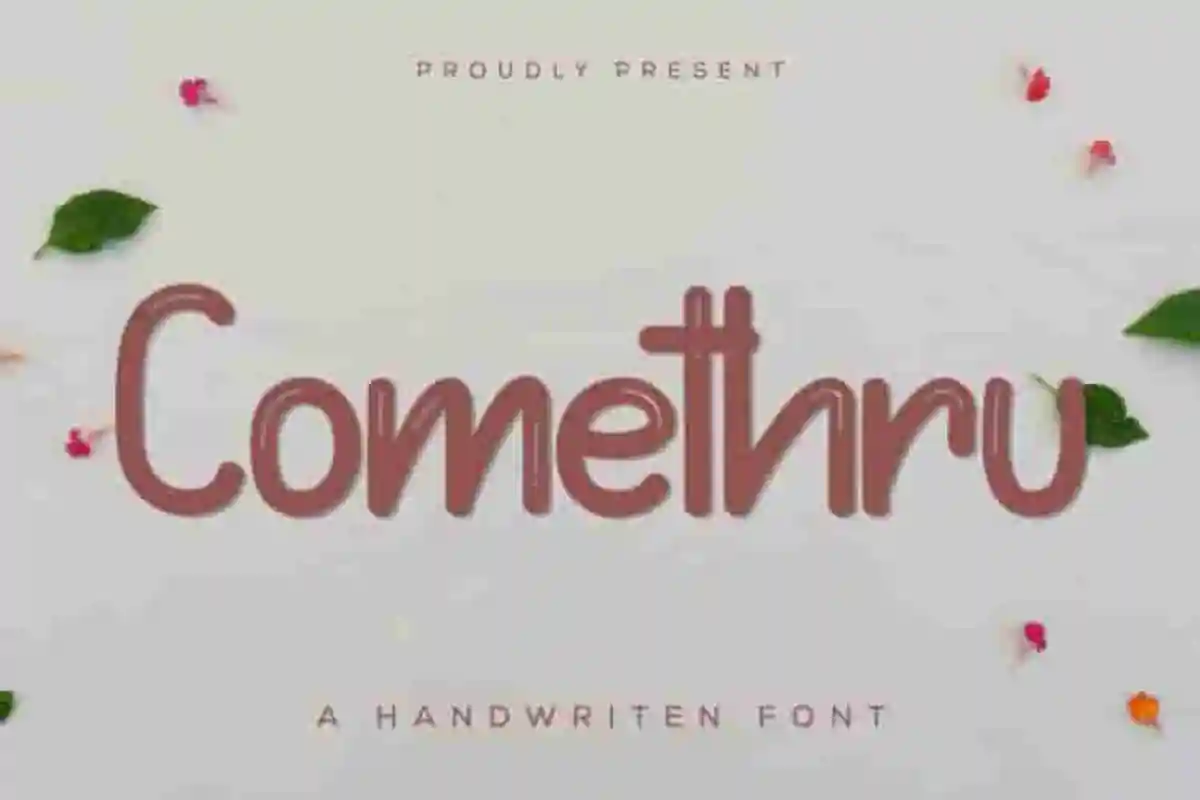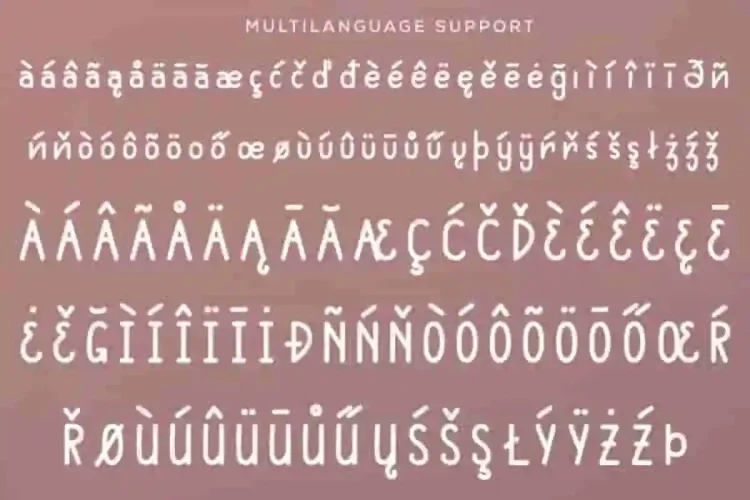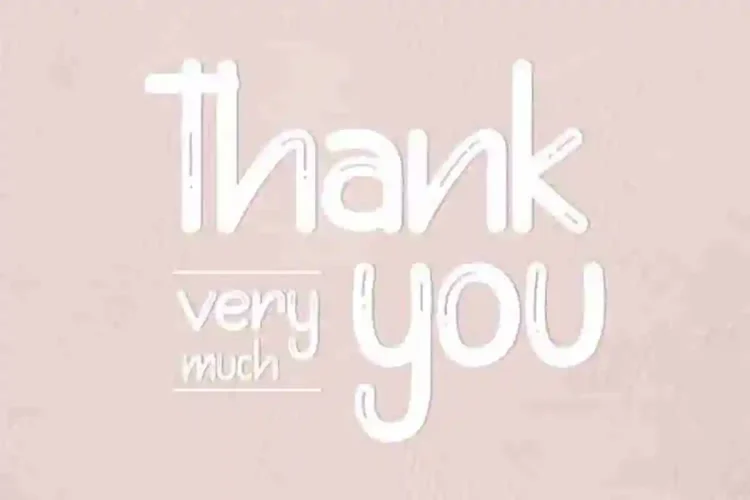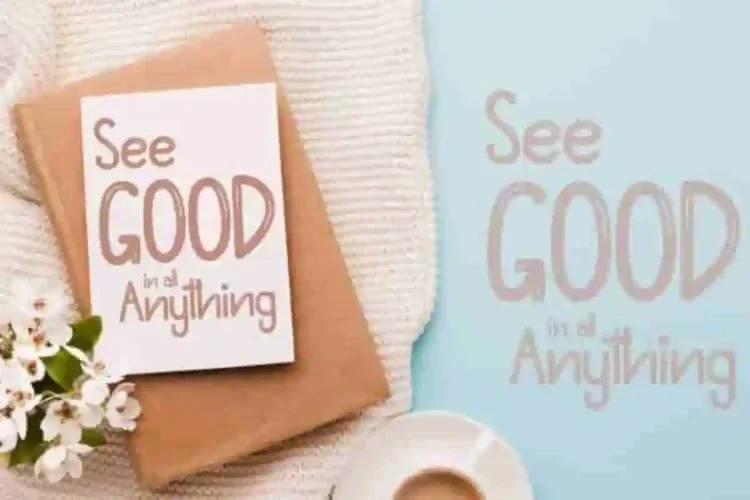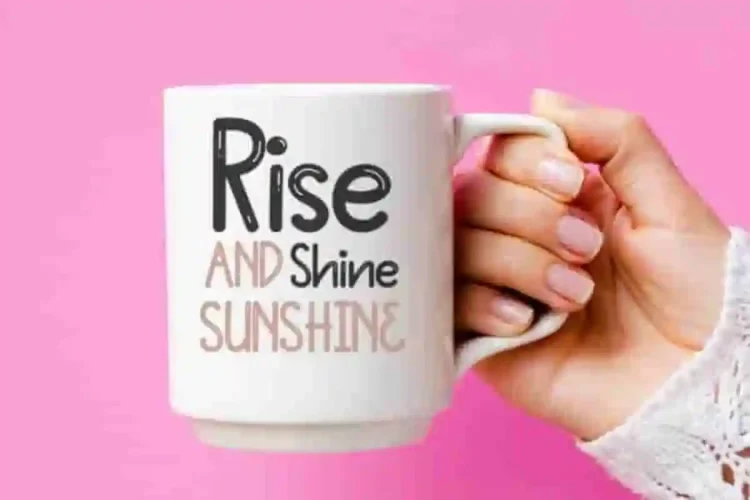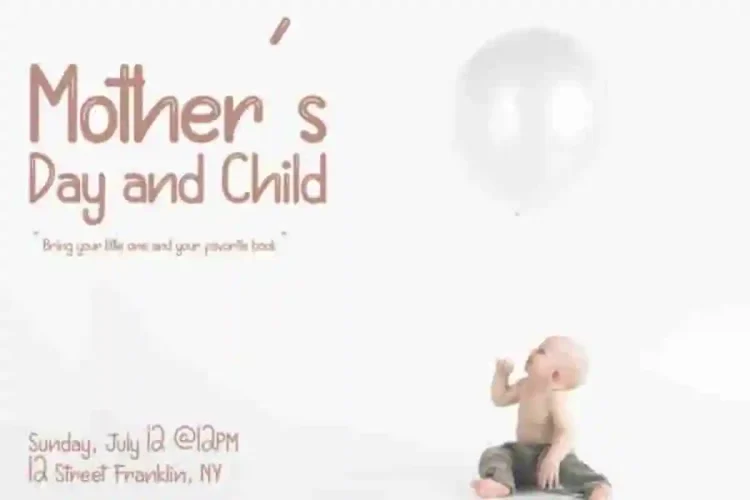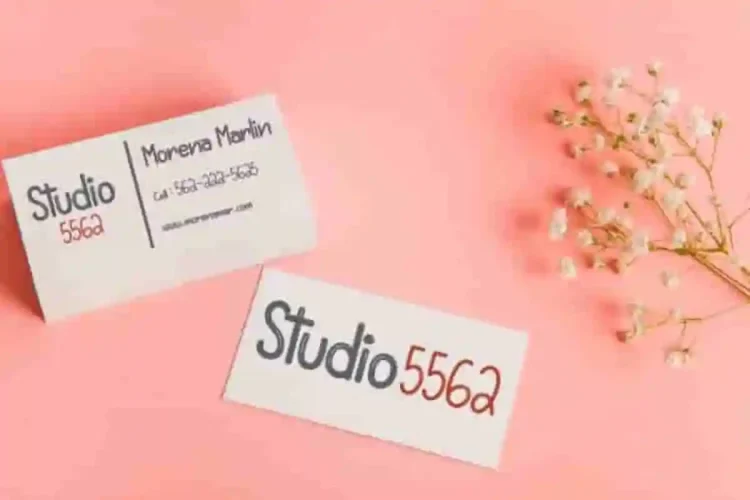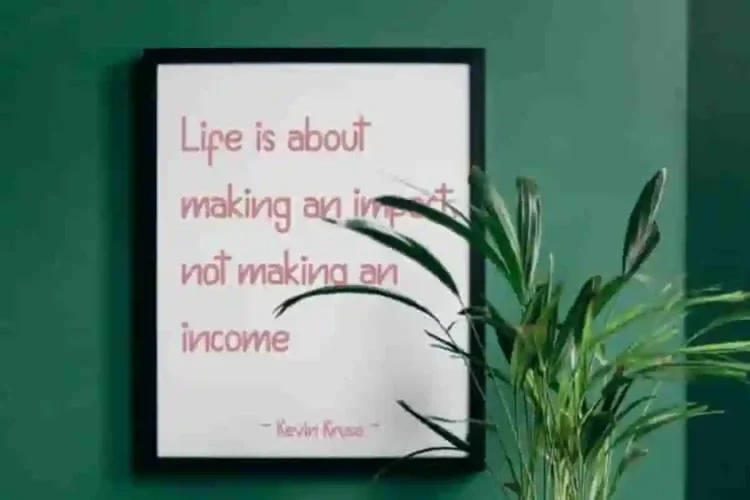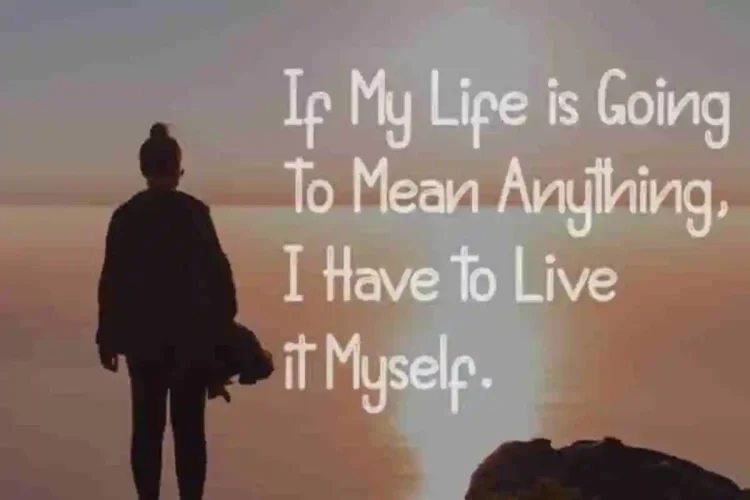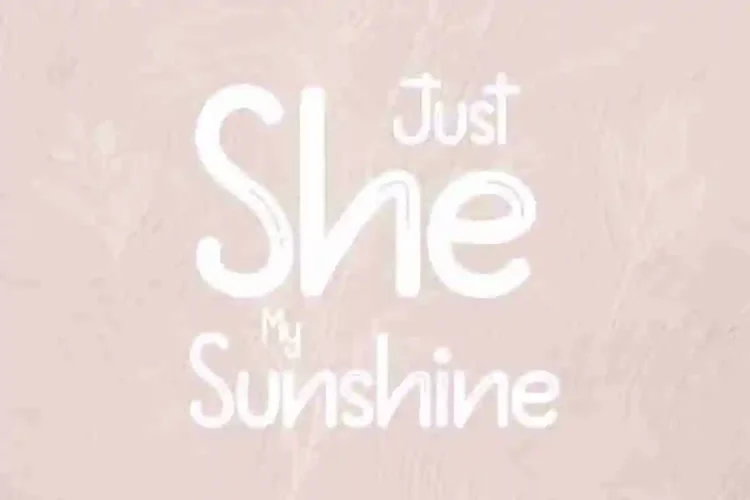
Comethru Handwritting Script Font
Comethru Handwritting Script Font is a fun script font with handwriting style. It was made in our Studio, Indonesia. The designers of this Comethru Handwritting Script Font are Widi and Sarah.
Comethru Handwritting Script Font is an exclusive handwritting script with unique styles : fun, cartoon, casual, stylish  and classic calligraphic style. It has a great characters set, perfectly managed with well spaced and kerning.